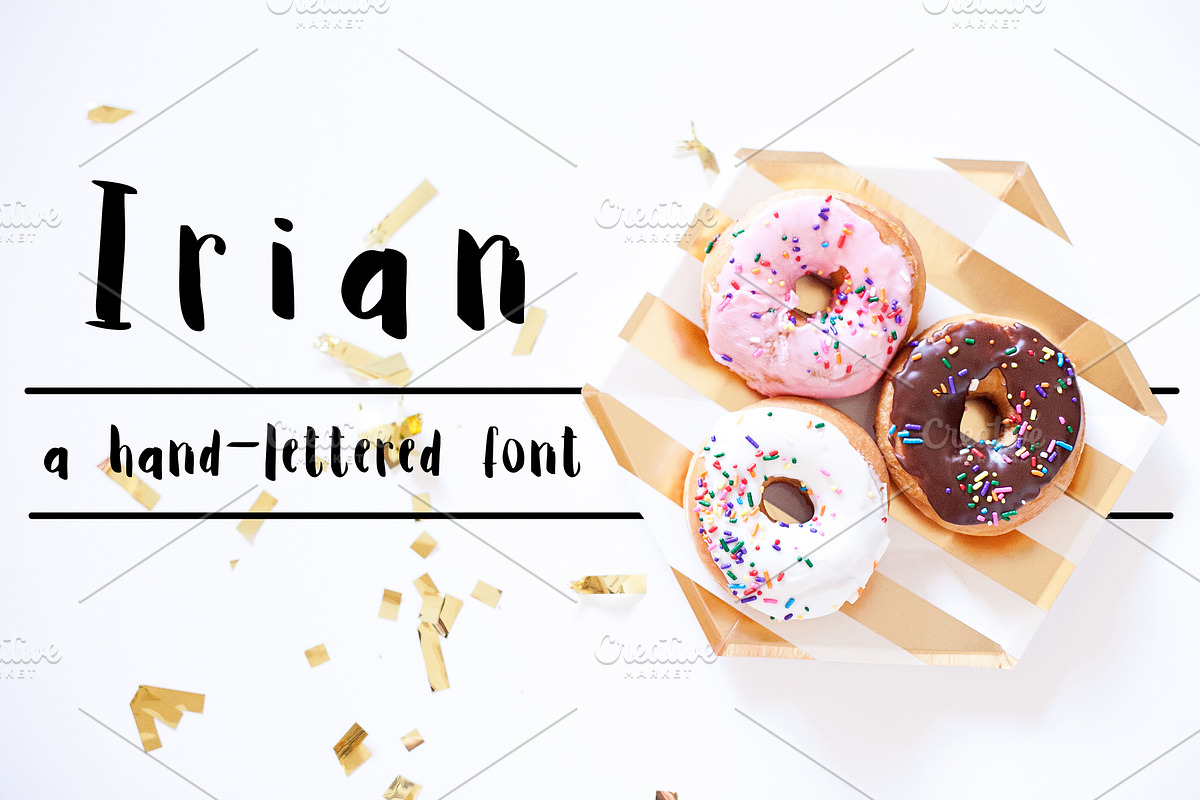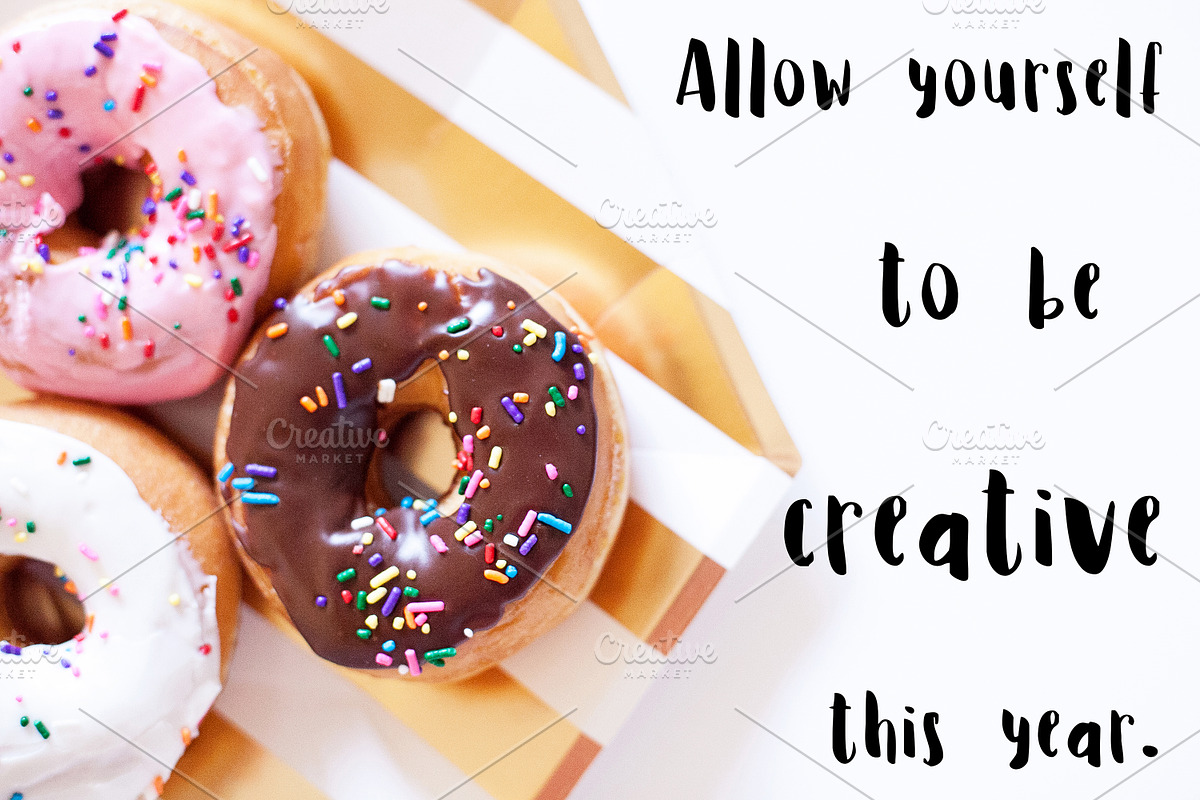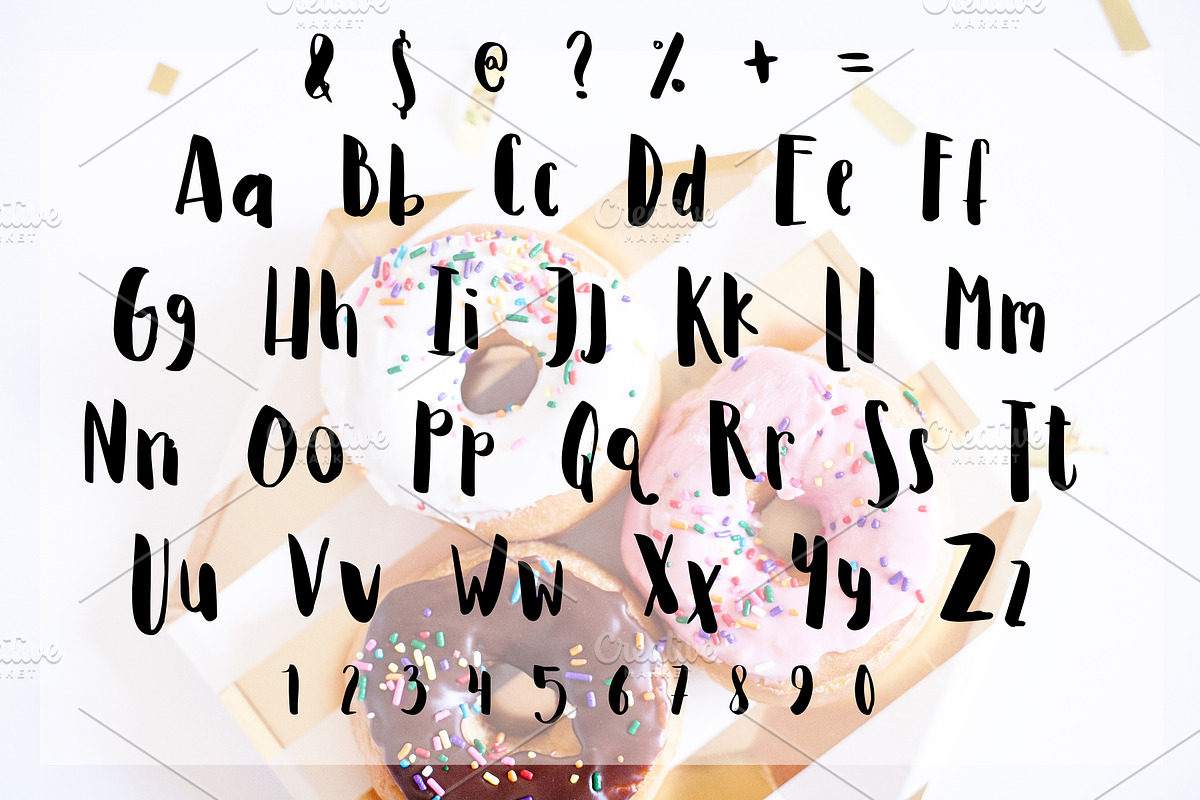
IRIAN Hand Lettered Font
IRIAN Hand Lettered Font by Rhonna Designs is a font selected for branding, posters, packaging, typography.
Why IRIAN Hand Lettered Font is worth a look
IRIAN Hand Lettered Font by Rhonna Designs fits naturally into Branding, posters, packaging, typography.